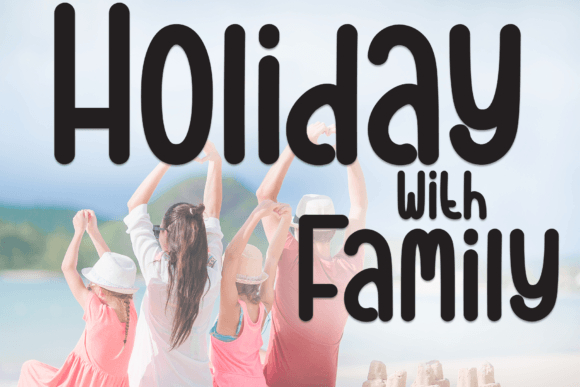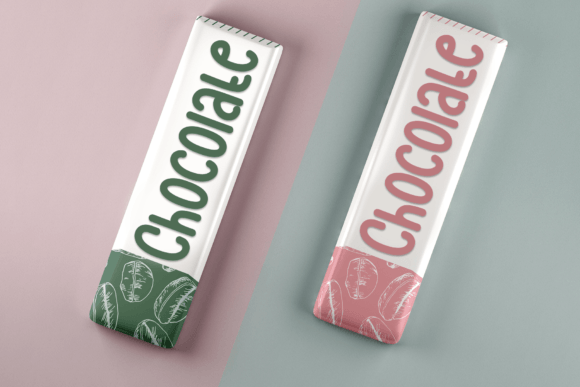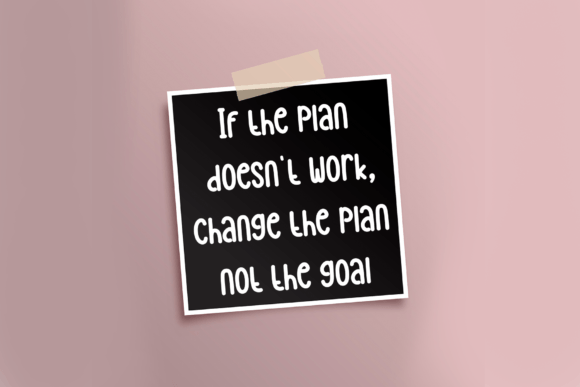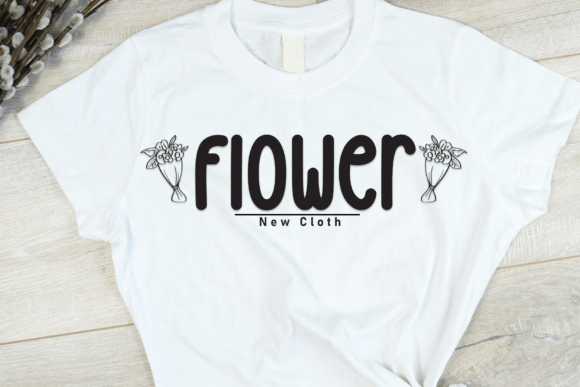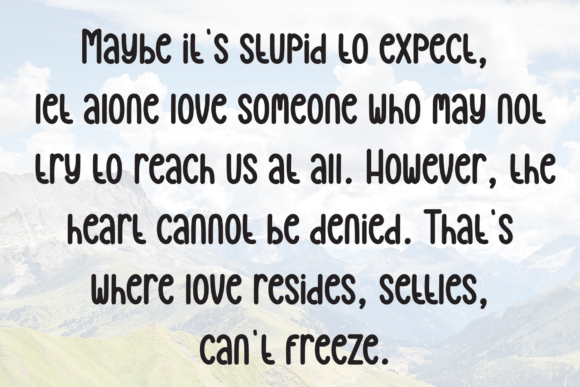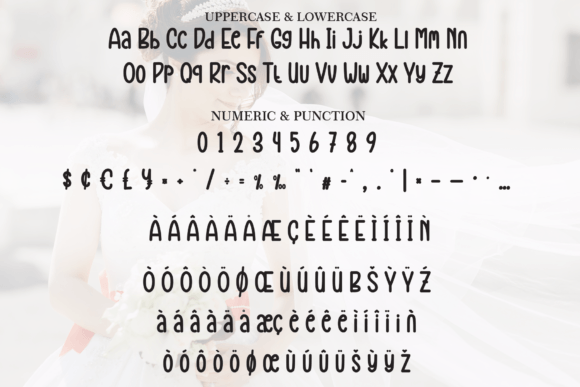
Introducing Beautiful Bride Font: The Perfect Choice for Wedding Designs
Are you a designer or crafter looking for a font that can add a touch of sweetness and friendliness to your wedding designs? Look no further than the Beautiful Bride Font! This stunning handwritten display font is perfect for creating beautiful wedding invitations, cards, and other designs that require a fun and playful touch.
What Makes Beautiful Bride Font So Special?
Beautiful Bride Font is a sweet and friendly handwritten display font that is designed to make your wedding designs stand out. Its cute and fun style makes it ideal for writing wedding invitations, cards, or any other design that might need a fun touch. The font is carefully crafted to provide a elegant and sophisticated look that is perfect for wedding designs.
Key Features of Beautiful Bride Font
- Sweet and Friendly Style: Beautiful Bride Font has a sweet and friendly style that makes it perfect for wedding designs.
- Handwritten Display Font: This font is a handwritten display font that adds a personal touch to your designs.
- Cute and Fun: The font is cute and fun, making it ideal for designs that require a playful touch.
- Perfect for Wedding Invitations: Beautiful Bride Font is perfect for writing wedding invitations, cards, or any other design that might need a fun touch.
Why Choose Beautiful Bride Font?
There are many reasons why you should choose Beautiful Bride Font for your wedding designs. Here are a few:
- Unique and Creative: Beautiful Bride Font is a unique and creative font that will make your designs stand out.
- Elegant and Sophisticated: The font has an elegant and sophisticated look that is perfect for wedding designs.
- Easy to Read: Beautiful Bride Font is easy to read, making it perfect for designs that require a clear and concise message.
- Versatile: The font is versatile and can be used for a variety of designs, including wedding invitations, cards, and more.
How to Use Beautiful Bride Font
Using Beautiful Bride Font is easy! Here are a few tips:
- Pair it with Other Fonts: Pair Beautiful Bride Font with other fonts to create a unique and creative design.
- Use it for Headings: Use Beautiful Bride Font for headings and titles to add a touch of elegance and sophistication.
- Add it to Your Designs: Add Beautiful Bride Font to your designs to make them stand out and add a personal touch.
Beautiful Bride Font for Designers and Crafters
Beautiful Bride Font is perfect for designers and crafters who want to create beautiful wedding designs. Here are a few ways you can use the font:
- Wedding Invitations: Use Beautiful Bride Font to create stunning wedding invitations that will impress your clients.
- Cards and Stationery: Use the font to create beautiful cards and stationery that will make your designs stand out.
- Digital Designs: Use Beautiful Bride Font to create digital designs, such as wedding websites and social media graphics.